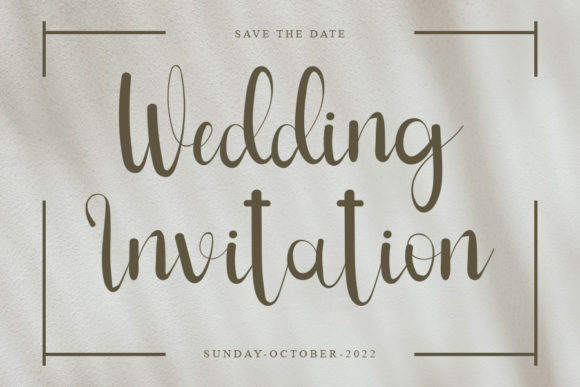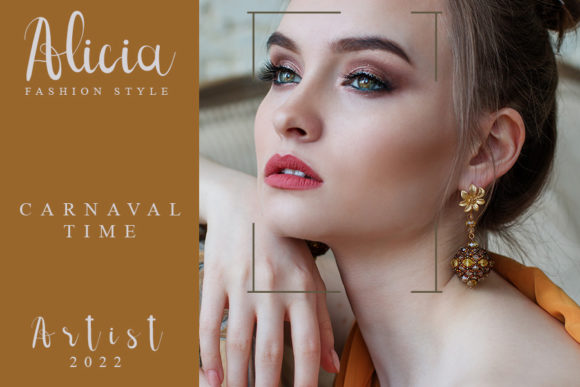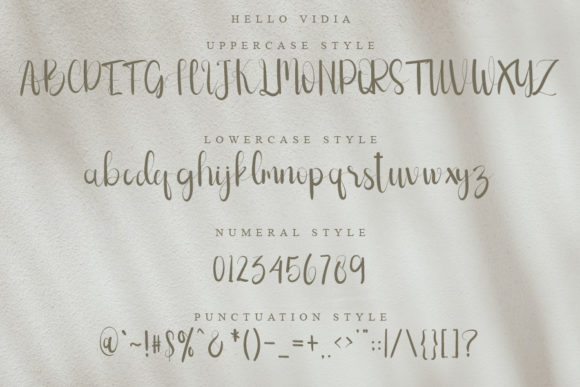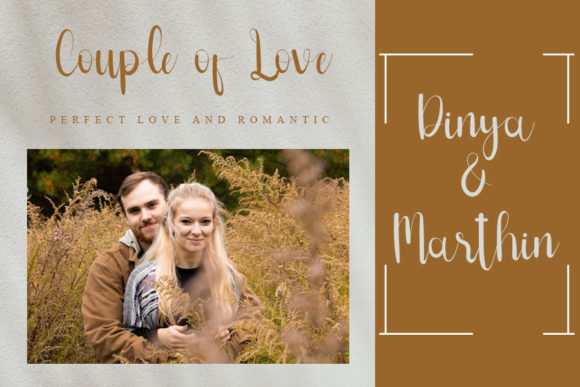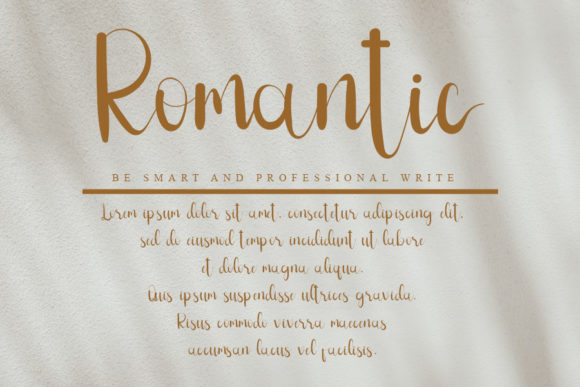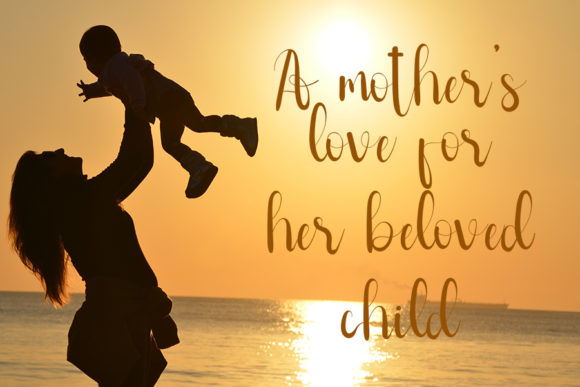
Hello Vidia Font
About Hello Vidia Font
Hello Vidia is a romantic and dainty script font. It has a classy, elegant and modern look that can be used for logos, branding, invitations, stationery, wedding designs, social media posts, and much more!